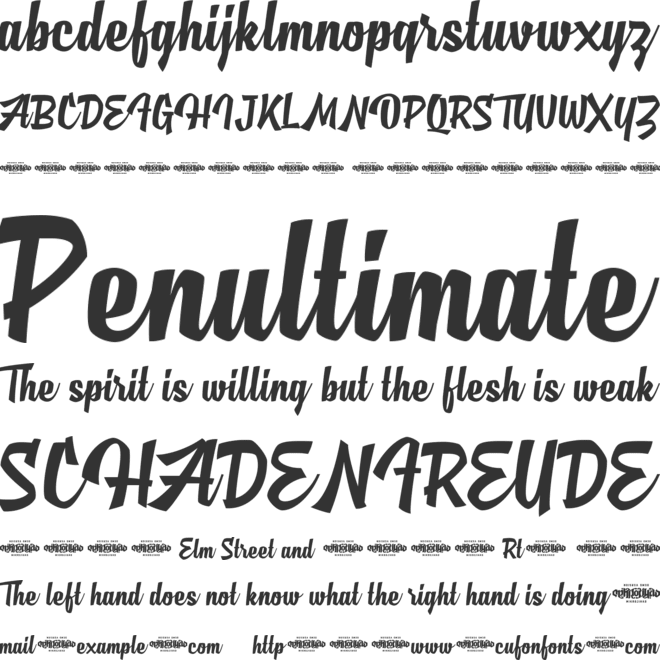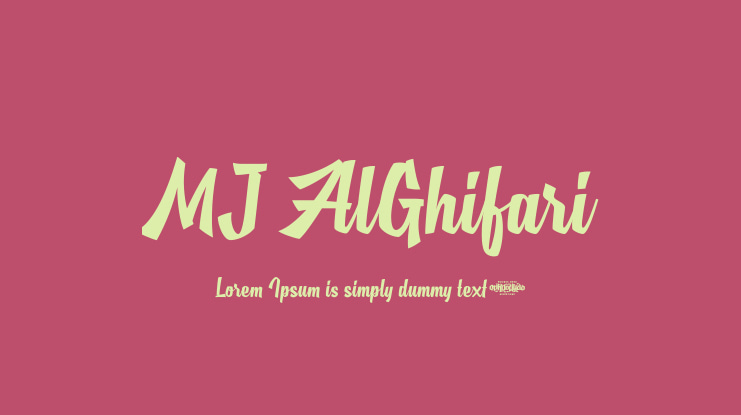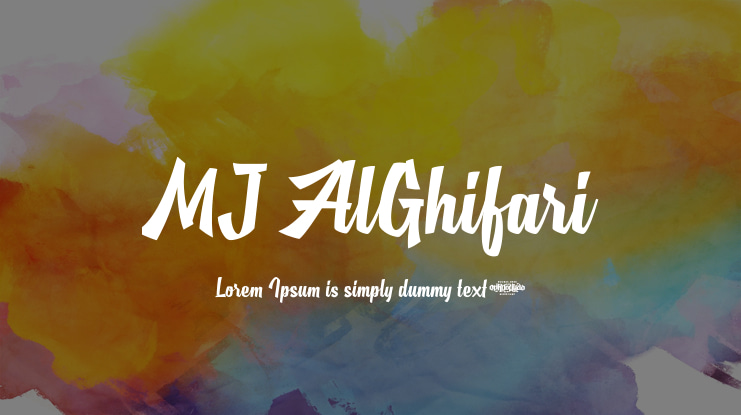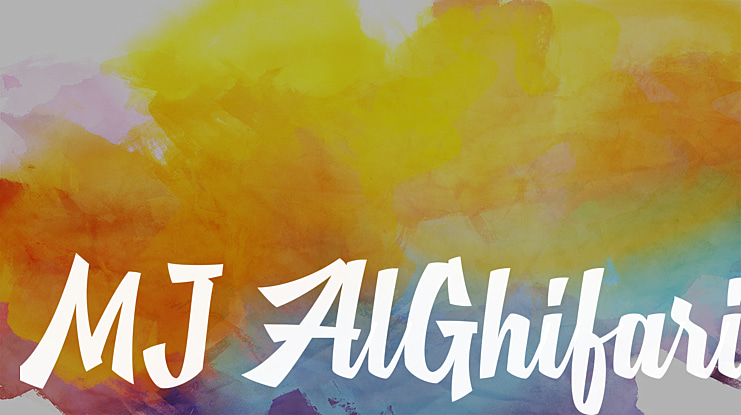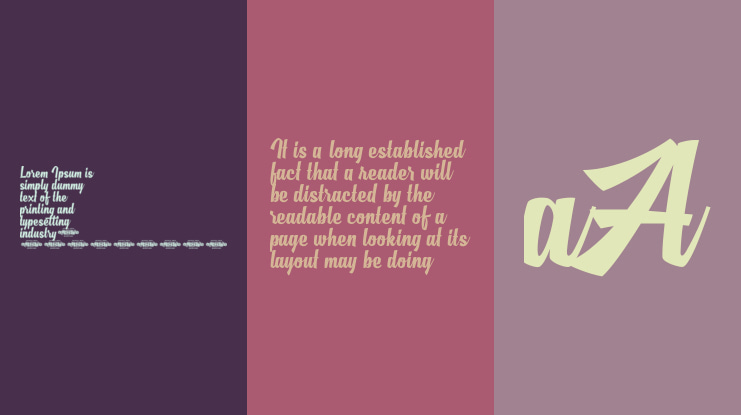
MJ AlGhifari Font
Hendra Pratama (Mikrojihad)
AlGhifari, another calligraphic typeface, inspired from the brushpen strokes lettering. A bit upright style with sharp edges. Smooth but tight is the personality of Alghifari shapes, make it looks strong as a custom handwriting font without losing it naturality.AlGhifari’s made for multi purpose design project. You can use it for anything. From a big Logotype to a smalltext. From Poster to wedding invitation card, From a book or magazine cover design to a T-shirt Design. It can be anything, as long it’s related to a typographic design.This is a free demo version, free for personal use. It has no numbers and no punctuation and only has support for contextual alternates and ligatures. Buy the full version here (https://crmrkt.com/GzM96g), which has more quality, equipped with OpenType Features. You can mix & Match between the Swashes Alternates, Ligatures Alternates, Stylistic Alternates + The stylistic set to bring your typography to the next level.Thanks, Mikrojihad